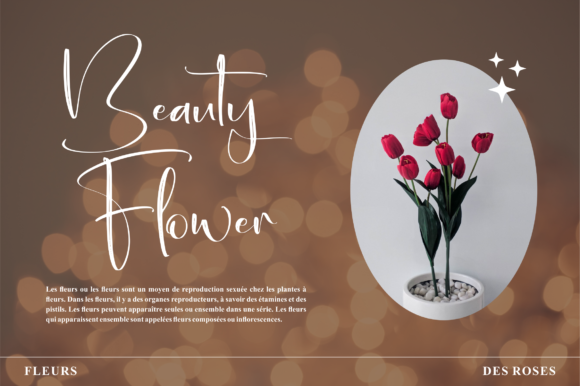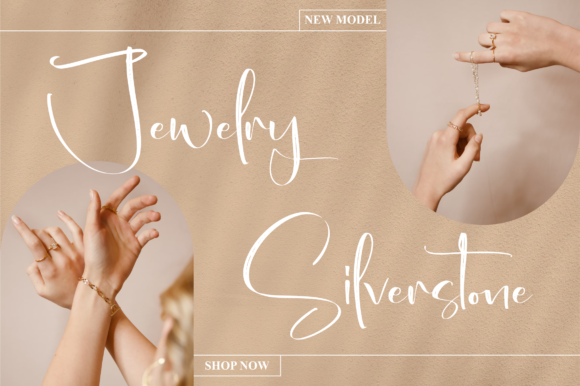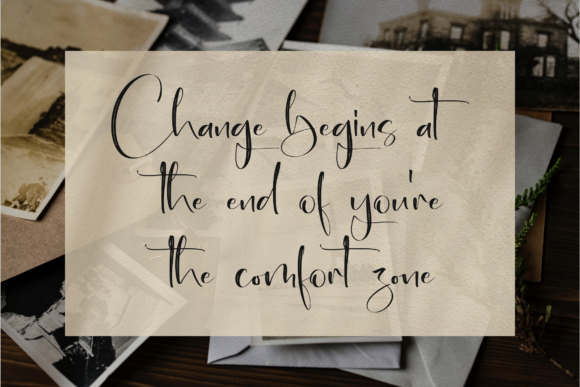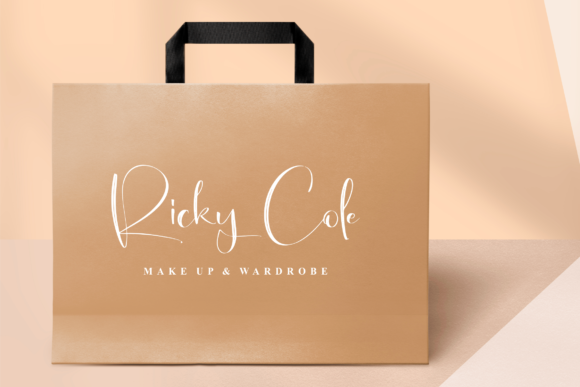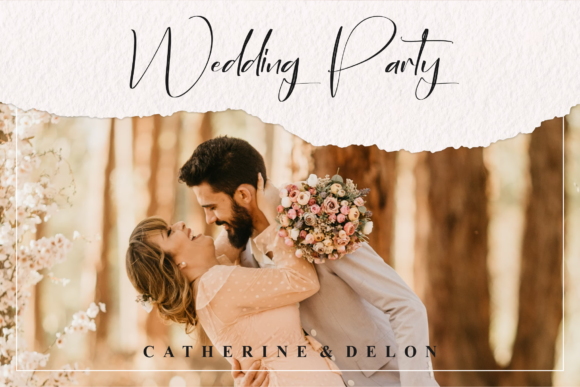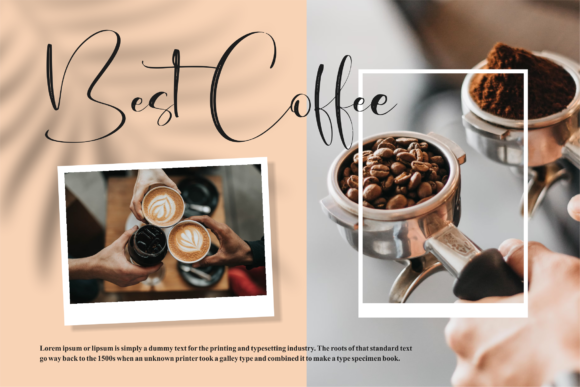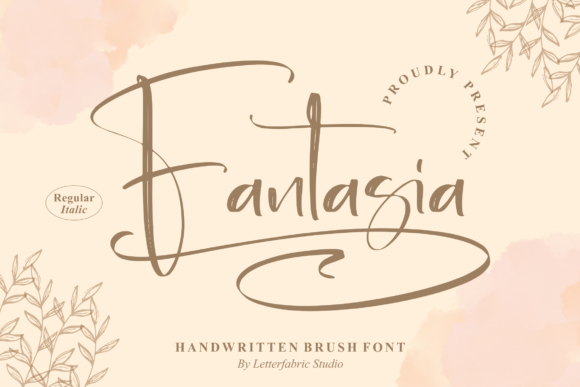
Fantasia Font: Elevate Your Designs with Elegance and Flair
Are you a designer or crafter looking for a font that can add a touch of sophistication and whimsy to your creative projects? Look no further than the Fantasia Font. This delicate, elegant, and flowing handwritten font is perfect for bringing your most imaginative ideas to life.
The Beauty of Fantasia Font
Fantasia Font is a masterpiece of typographic design, boasting beautiful and well-balanced characters that exude a sense of refinement and poise. Its elegant strokes and flowing curves make it an ideal choice for a wide range of design applications, from wedding invitations and branding materials to digital graphics and craft projects.
One of the standout features of Fantasia Font is its incredible versatility. Its unique blend of elegance and playfulness makes it suitable for a diverse range of designs, including:
- Wedding and event planning materials
- Branding and packaging designs
- Digital graphics and social media assets
- Craft and DIY projects
- Stationery and paper crafts
Why Choose Fantasia Font?
So, what sets Fantasia Font apart from other fonts on the market? Here are just a few reasons why designers and crafters love working with this beautiful font:
- Elegant and refined: Fantasia Font adds a touch of sophistication to any design, making it perfect for high-end branding and luxury projects.
- Easy to read: Despite its elegant appearance, Fantasia Font is highly legible, making it suitable for body text and longer blocks of content.
- Highly versatile: Whether you’re designing for print or digital, Fantasia Font adapts seamlessly to different mediums and applications.
- Unique and creative: With its flowing curves and delicate strokes, Fantasia Font brings a level of creativity and imagination to your designs.
Tips for Using Fantasia Font
To get the most out of Fantasia Font, here are a few expert tips to keep in mind:
- Pair with contrasting fonts: Combine Fantasia Font with bold, sans-serif fonts to create striking visual contrast and hierarchy.
- Experiment with colors: Fantasia Font looks stunning in a range of colors, from soft pastels to rich jewel tones. Don’t be afraid to experiment and find the perfect hue for your design.
- Play with texture and pattern: Add depth and interest to your design by incorporating texture and pattern alongside Fantasia Font.
In conclusion, Fantasia Font is a truly exceptional handwritten font that can elevate your designs to new heights. Its delicate, elegant, and flowing curves make it perfect for a wide range of creative projects, from branding and advertising to craft and DIY. With its versatility, beauty, and ease of use, Fantasia Font is sure to become a favorite among designers and crafters alike. So why wait? Add Fantasia Font to your creative toolkit today and watch your designs come alive!